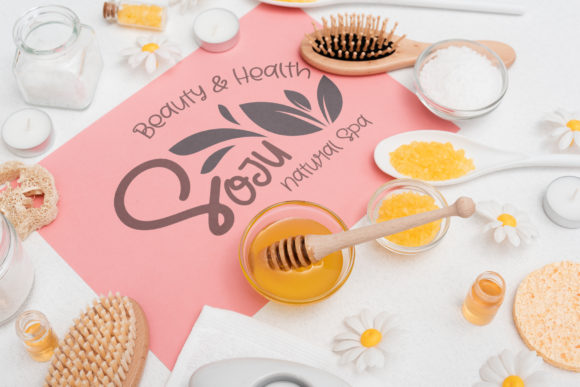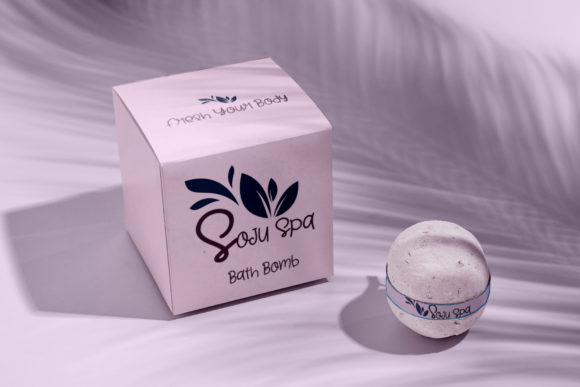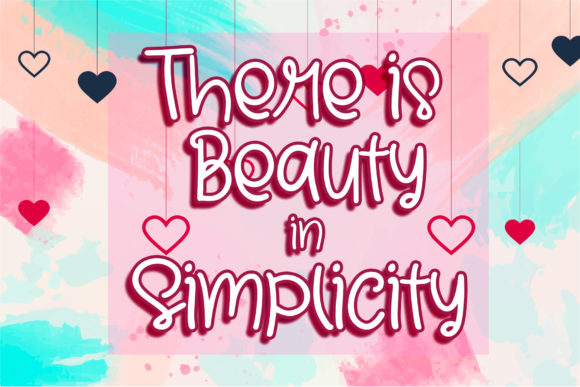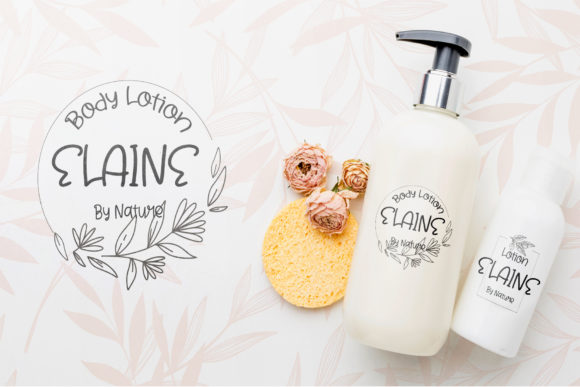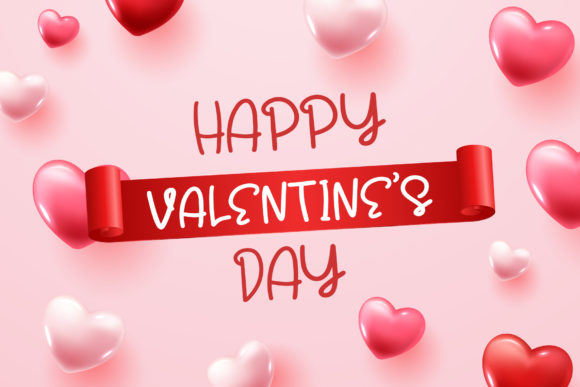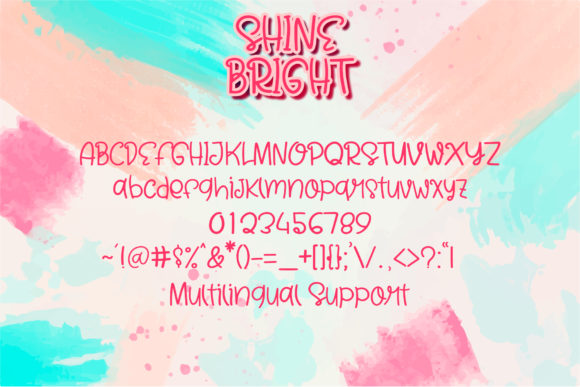
Shine Bright Font
About Shine Bright Font
Shine Bright is a lovely and delicate handwritten font that brings a touch of elegance and simplicity to your designs. With its clean and dainty letterforms, this font is versatile and can be used for a wide range of purposes.
The simplicity of Shine Bright is what makes it so appealing. The clean and uncluttered strokes give the font a refined and timeless look. Whether you’re creating a logo, designing wedding invitations, or crafting headlines, this font adds a touch of sophistication to your projects.
One of the great features of Shine Bright is its versatility. It can be used across various mediums and applications. From printed materials like letterheads, signage, labels, and posters to digital platforms such as websites and social media graphics, this font adapts seamlessly to different contexts.
The delicate and refined nature of Shine Bright makes it particularly well-suited for elegant and feminine designs. It adds a sense of grace and beauty to wedding invitations, creating a romantic and enchanting atmosphere. When used in logos and branding, it conveys a sense of sophistication and professionalism.
The simplicity of Shine Bright also ensures legibility and readability, making it suitable for both small and large text sizes. The clean letterforms make it easy to read, ensuring that your message is conveyed effectively to your audience.
By incorporating Shine Bright into your designs, you can add a touch of elegance and simplicity that elevates your projects. Its versatility and refined aesthetic make it a valuable asset for various design purposes.
In summary, Shine Bright is a simple and dainty handwritten font that adds elegance and sophistication to your designs. Its clean and delicate letterforms make it suitable for a wide range of purposes, from logos and wedding invitations to labels and posters. Embrace the charm of Shine Bright and let it bring a touch of grace to your creative endeavors.